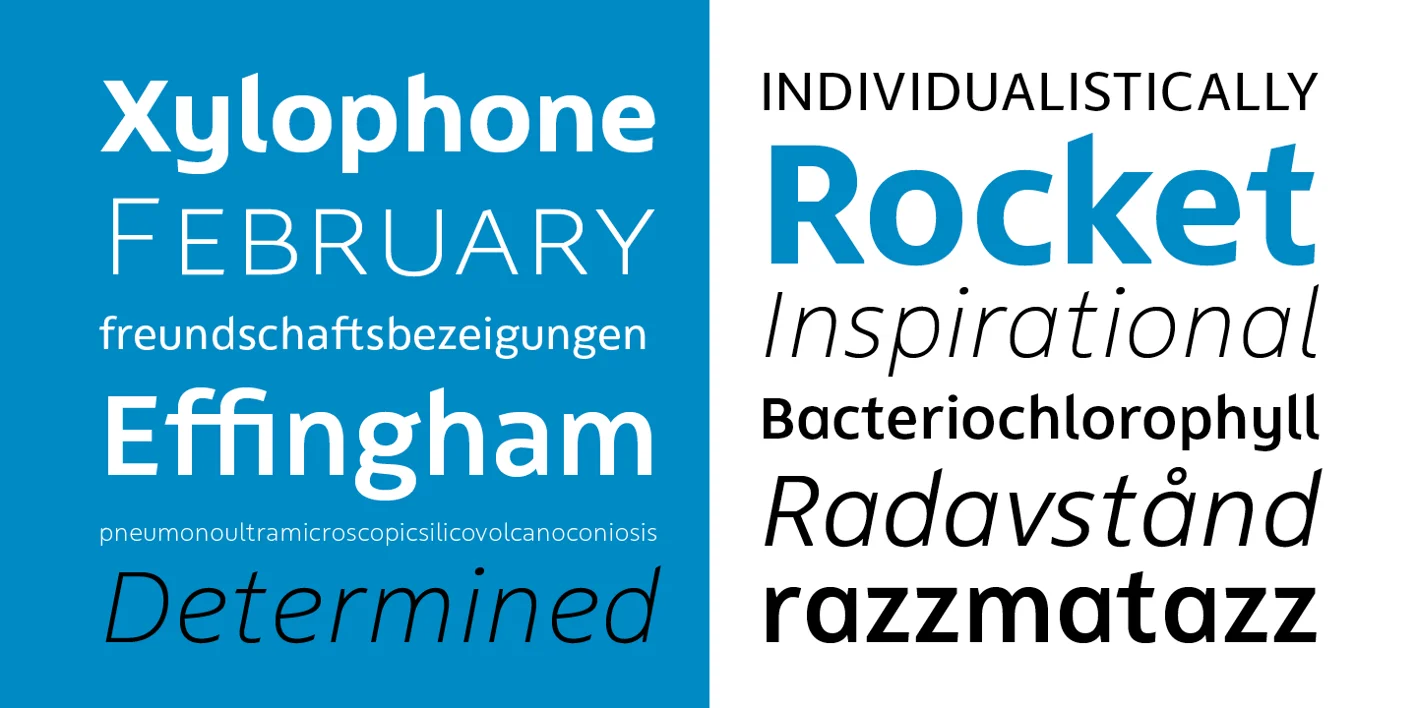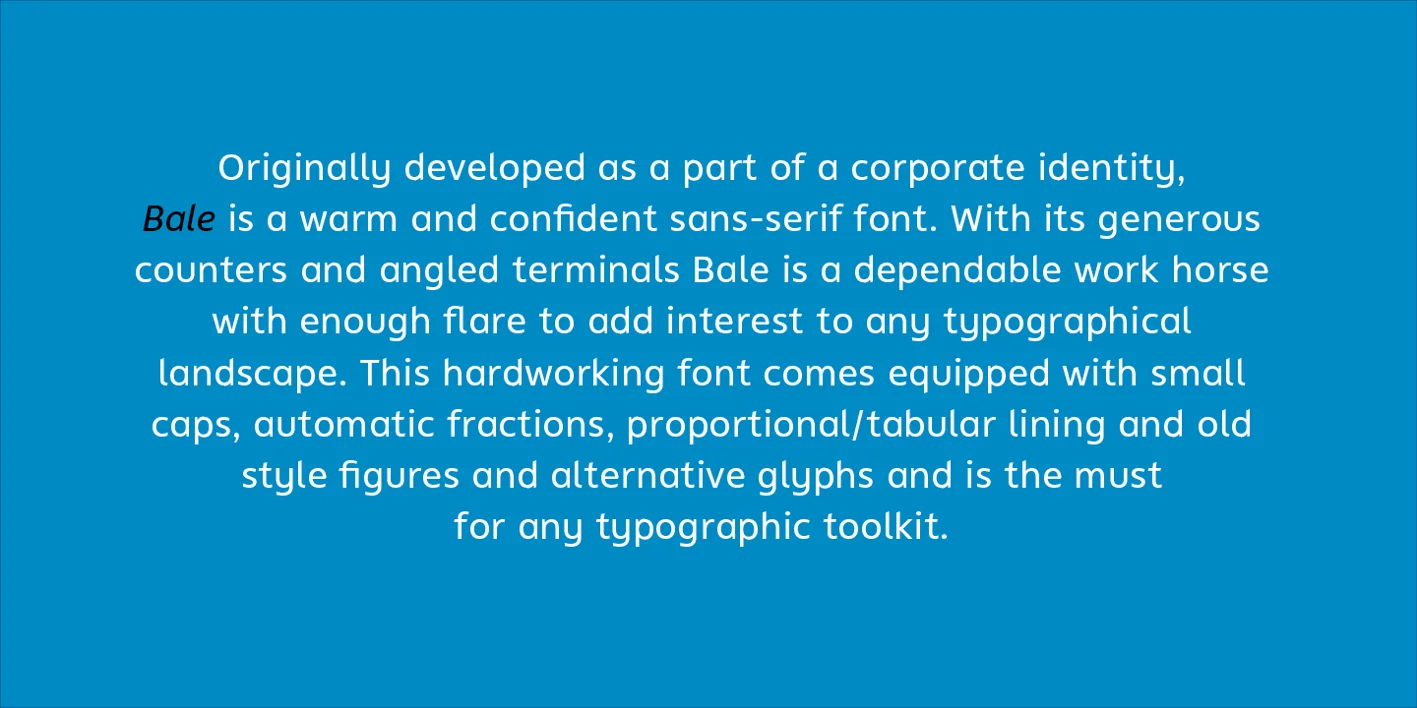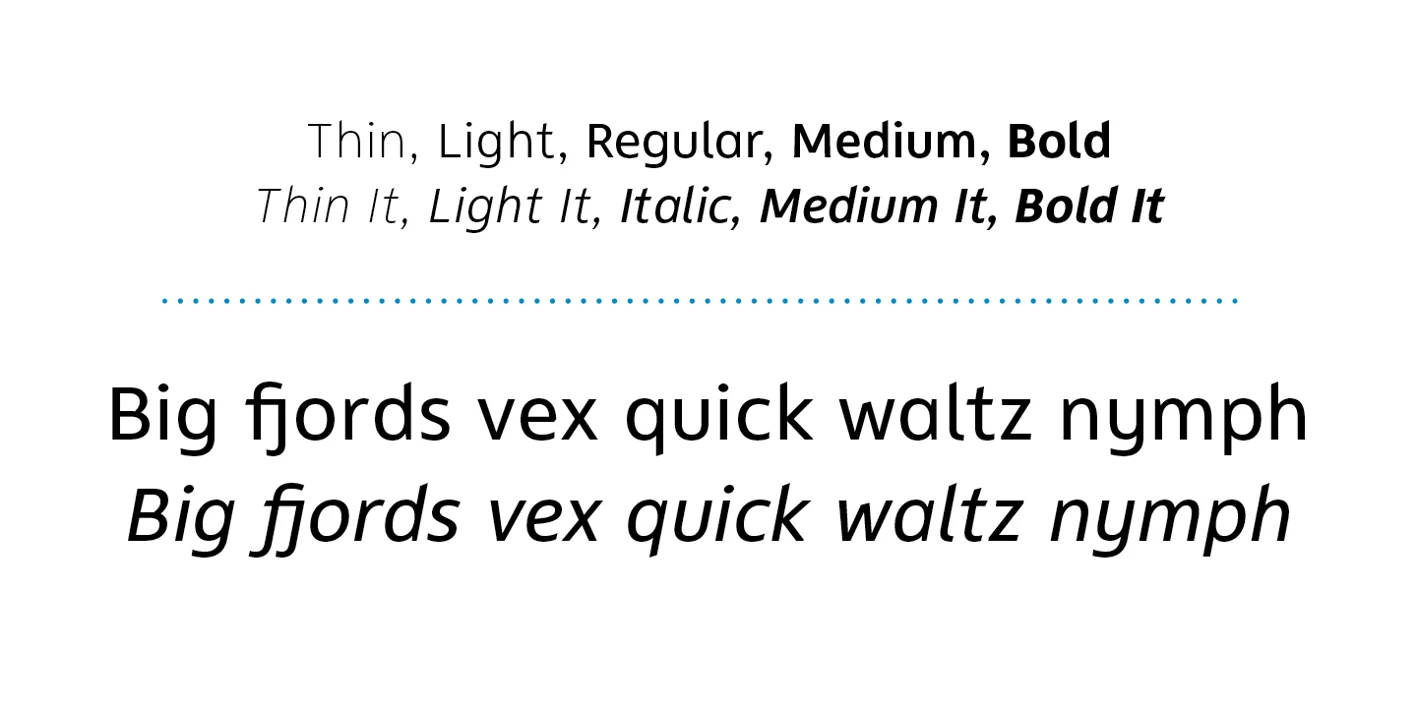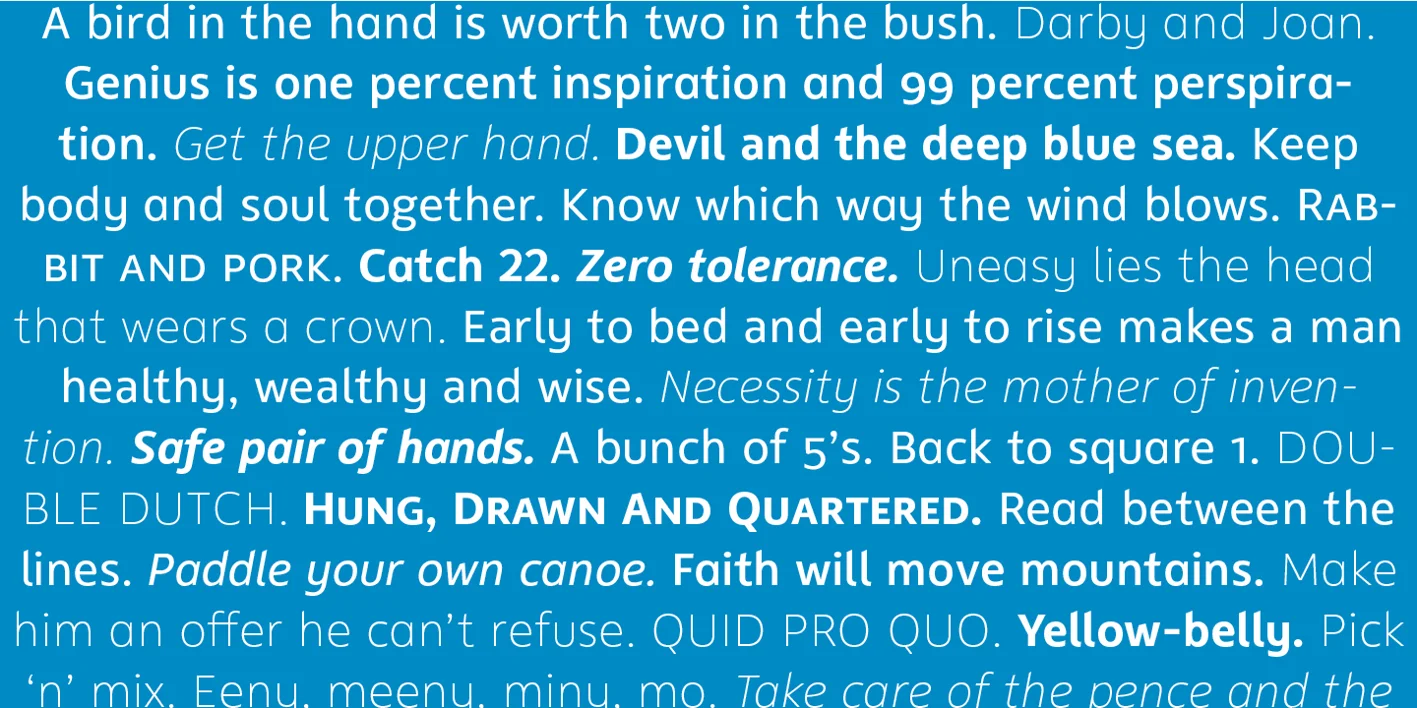
Bale Font
There is a particular satisfaction in finding a typeface that delivers optical balance across all weights without compromise. Bale consistently provides it. The typeface brings a versatile sensibility to a broad range of creative disciplines, with the kind of restraint that lets content lead that holds up whether the work is print-first or screen-first.
In practice, Bale proves particularly effective for signage systems, poster creation, brand identity systems, packaging design, advertising campaigns. Designers reaching for it find that the type decisions feel resolved rather than laboured — a useful quality when client timelines are tight.
The range of applications extends to annual reports, logo design, product labels, editorial layouts. That breadth is deliberate: the proportions and spacing were stress-tested across a wide range of mock briefs before the typeface was finalised.
The consistent rhythm of Bale across a full paragraph creates the kind of even grey value that makes extended reading comfortable, a detail that matters more in long-form content than its subtlety might suggest.
Brand strategists building visual languages find Bale a reliable choice for projects that demand both personality and restraint. The design avoids the self-conscious quirkiness that dates quickly, settling instead for considered distinctiveness that holds up over time.